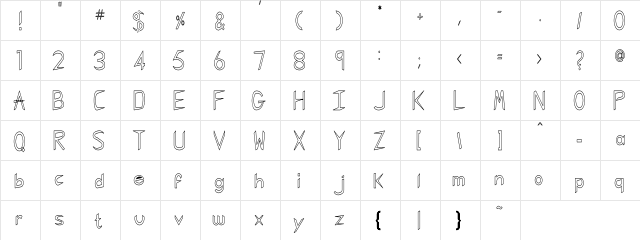
Gregorian__KK Regular
Design Context for Gregorian__KK Typeface
Gregorian__KK offers clean, dependable letterforms without strong stylistic allegiance, making it a practical choice for designers who need flexibility.